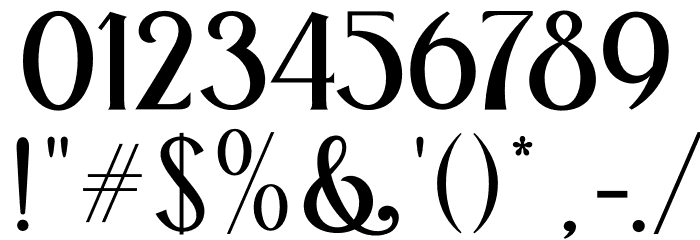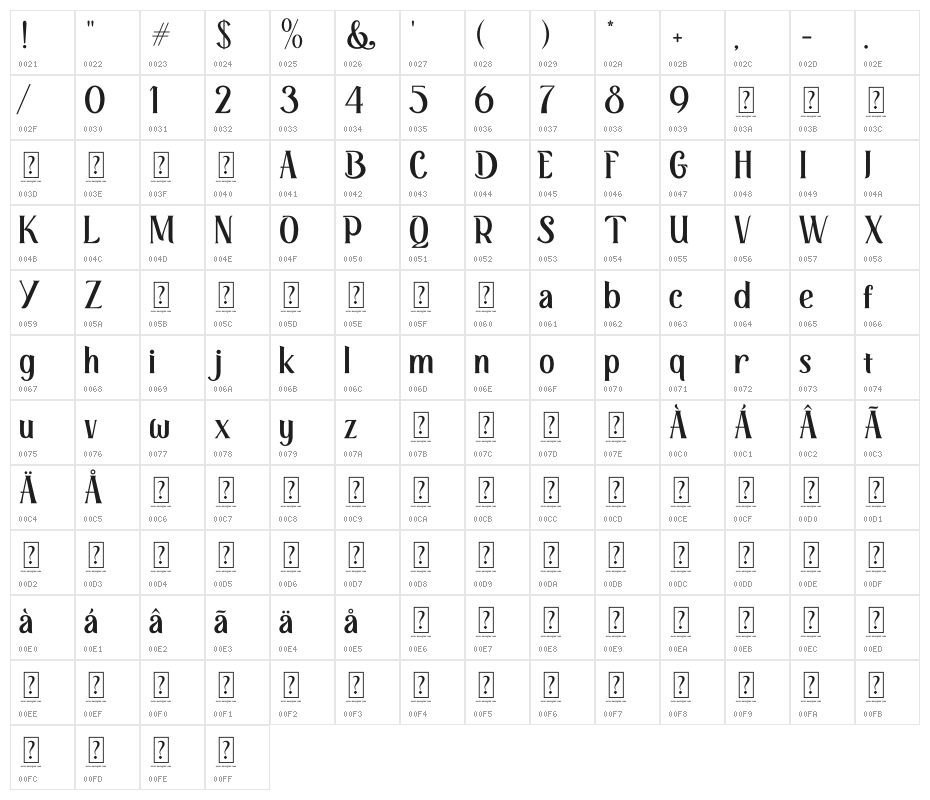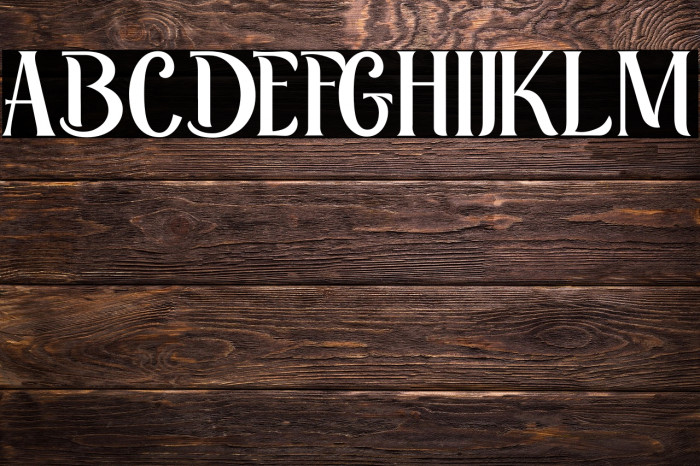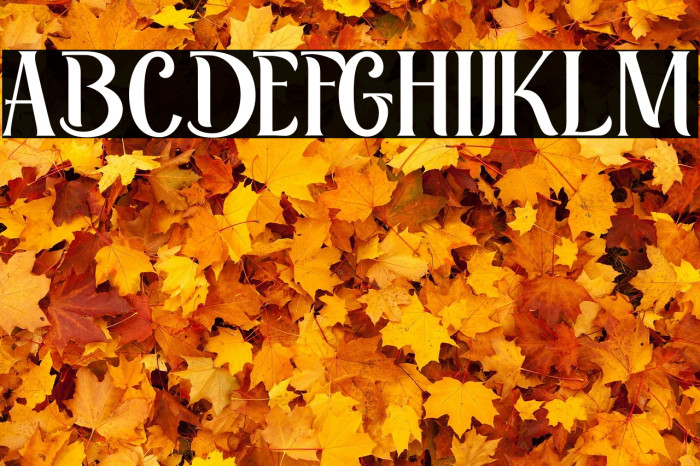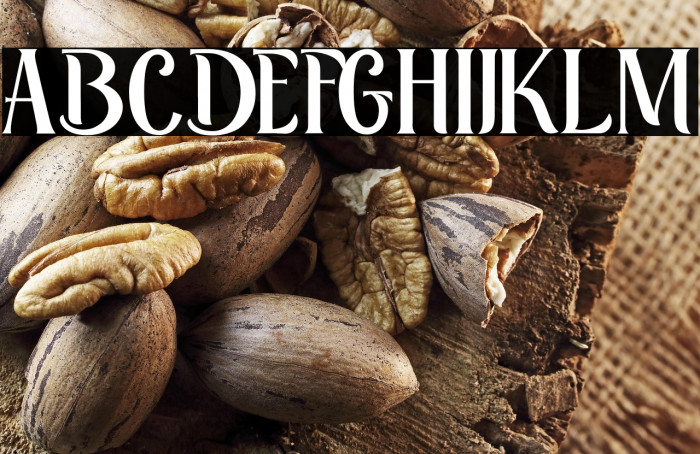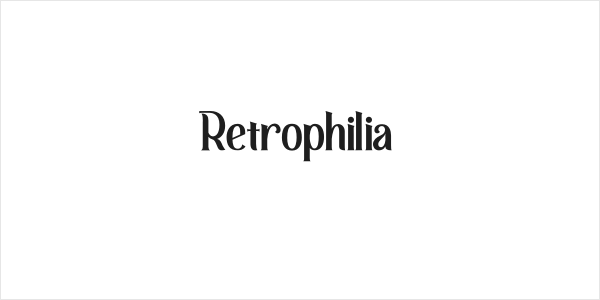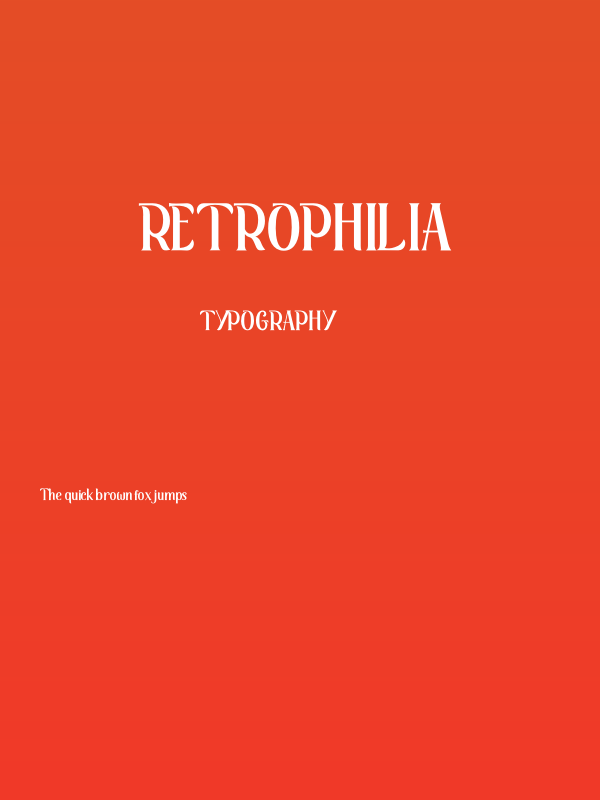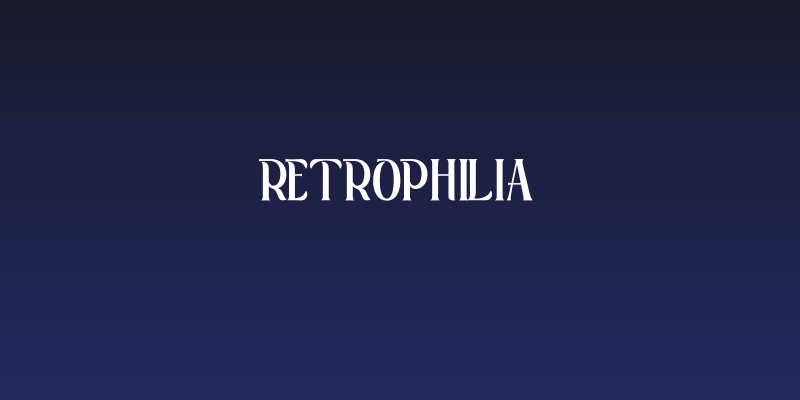
Retrophilia Font
Retrophilia Description
This font exhibits a unique blend of retro and modern styles, characterized by its bold and artistic flair. The uppercase letters feature exaggerated curves and sharp angles, creating a dynamic and eye-catching appearance. The lowercase letters maintain a consistent style, with smooth curves and a slightly condensed form, adding to the overall elegance. The numerals are distinct and bold, ensuring readability while maintaining the font's artistic essence. Special characters are creatively designed, adding a playful yet sophisticated touch. This font is perfect for projects that require a vintage yet contemporary aesthetic, making it versatile for various design needs.
| Overall Style | Retro, Modern |